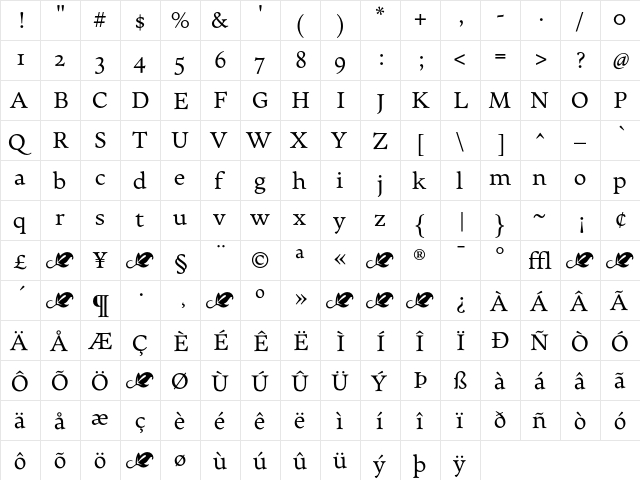
Elmhurst Regular
Design Context for Elmhurst Typeface
Elmhurst offers clean, dependable letterforms without strong stylistic allegiance, making it a practical choice for designers who need flexibility.
Pro Tip: Use Elmhurst in both headline and body roles to test its range before committing to a single application.